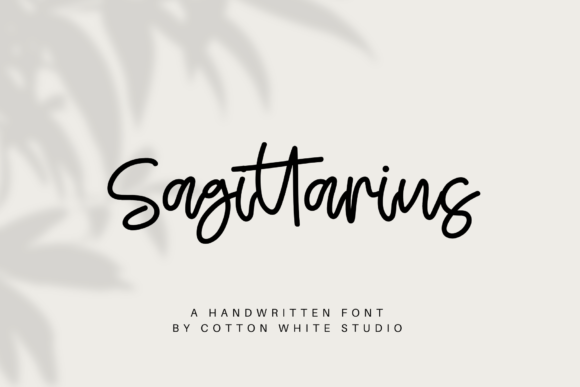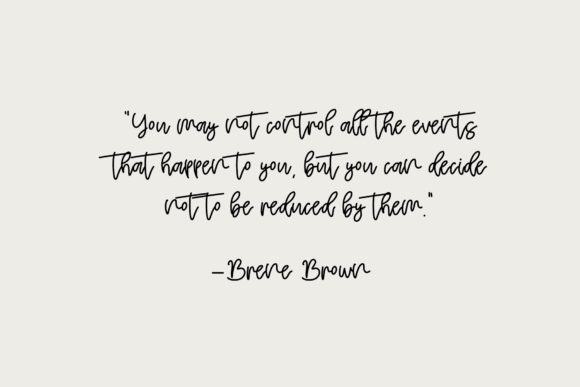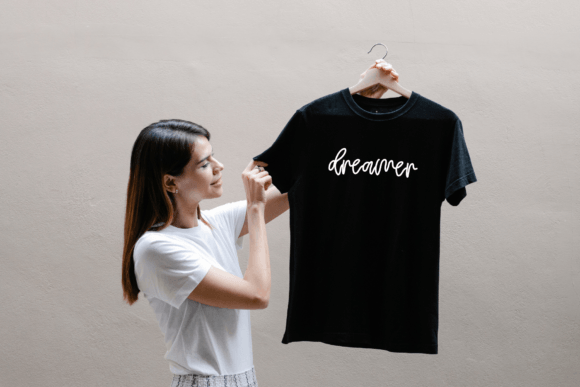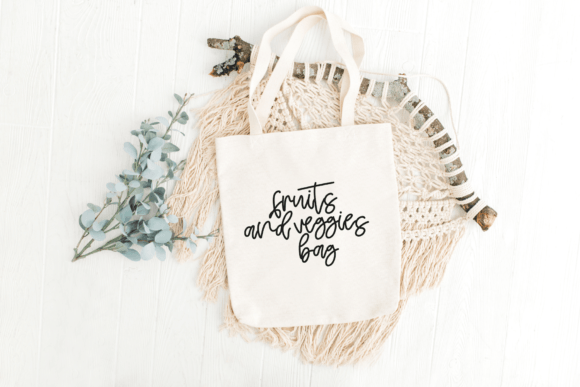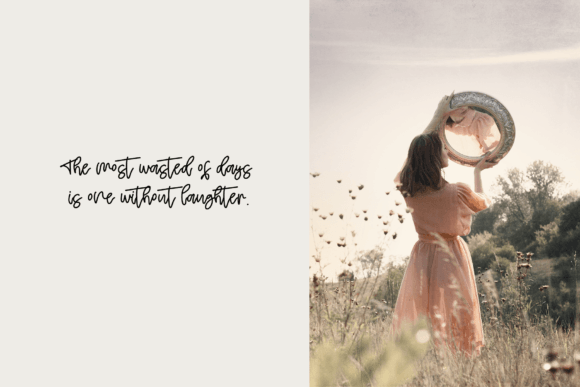
About Sagittarius Font
**Elevate Your Designs with the “Sagittarius” Hand-Drawn Elegant Font**
Introducing “Sagittarius,” a stunning hand-drawn elegant font that will infuse a beautiful, handcrafted look into your design work. This versatile typeface offers a range of creative possibilities for your projects:
1. **Branding:** Create memorable and unique branding materials with the distinctive style of “Sagittarius.” Its hand-drawn elegance adds character and authenticity to your brand.
2. **Invitations:** Make your event invitations stand out with the captivating charm of “Sagittarius.” Whether it’s weddings, parties, or special occasions, this font adds a touch of elegance.
3. **Blogs and Websites:** Enhance your blog or website design with the authentic hand-lettered touch of “Sagittarius.” Use it for headings, accents, and other design elements to create a unique online presence.
4. **Planners and Journals:** Elevate your planner or journal designs with the fabulous “Sagittarius” font. Its handcrafted look adds a personal and artistic flair to your planning materials.
5. **Social Media Graphics:** Craft eye-catching social media graphics that engage your audience. “Sagittarius” adds a touch of elegance to your posts and ensures your message stands out.
6. **Print Materials:** Whether it’s flyers, brochures, or posters, “Sagittarius” is perfect for clean and elegant print design. Its readability and charm make it an excellent choice for various print materials.
7. **Greeting Cards:** Design stunning greeting cards that leave a lasting impression. “Sagittarius” brings a unique and heartfelt touch to your card creations.
8. **Personal Projects:** Use “Sagittarius” for your personal creative projects, from crafting to DIY endeavors. Its hand-drawn elegance adds a distinctive and artistic quality.
9. **Artistic Signatures:** Create beautiful and artistic signatures for your artwork, documents, or emails. “Sagittarius” ensures your signature stands out with elegance.
10. **Unique Headers:** Make headers in documents or presentations pop with the unique and authentic style of “Sagittarius.” Its hand-drawn quality adds a touch of sophistication.
“Sagittarius” isn’t just a font; it’s a design tool that adds elegance, character, and a touch of handcrafted beauty to your projects. Whether you’re building a brand, designing invitations, or enhancing your online presence, this hand-drawn font ensures your work is truly one-of-a-kind.